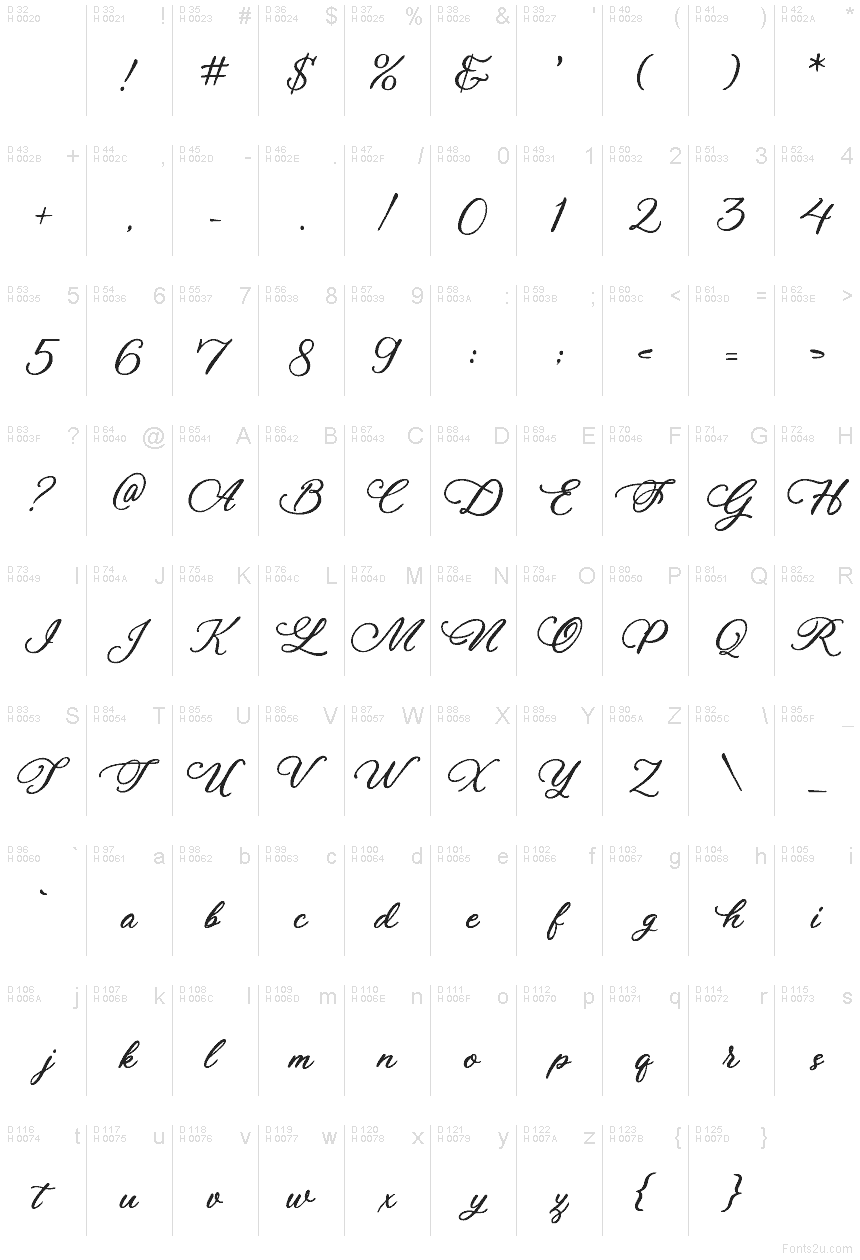
Nuptial Liberty
Nuptial Liberty font by BlackFridayFont FMF is a free elegant calligraphy font. Its long, whistling swashes and looping ascenders flow like wet ink, while the tight rhythm and gentle stroke contrast keep it readable at headline sizes. There’s a lively bounce to the baseline that feels celebratory without turning messy—romance with a bit of spark.
Using Nuptial Liberty shines on wedding invitations, save‑the‑dates, event signage, boutique logos, cosmetic packaging, greeting cards, and social posts that need a graceful lift. The generous flourishes build instant drama, so give it air: set larger and track slightly open. Pair this free font with a crisp geometric sans for supporting text to let the script do the talking.